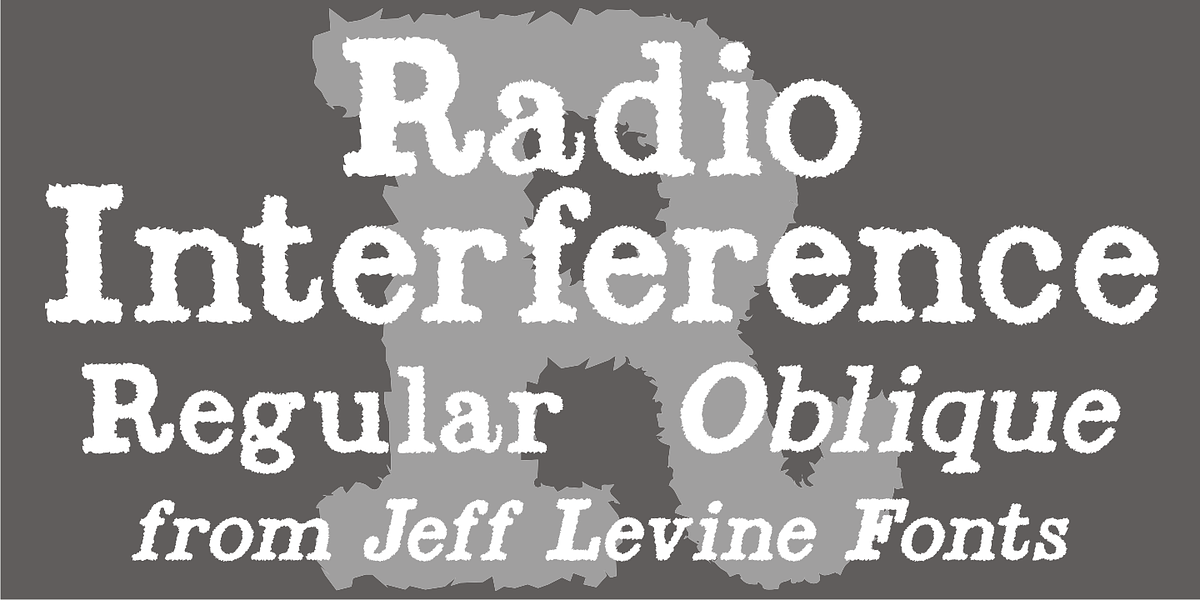
Radio Interference JNL
The font Antique Slabserif JNL was run through a filter to create a design that looks like worn type at smaller settings or jaggedly distressed lettering in larger type heights.
The end result is Radio Interference JNL, which is available in both regular and oblique versions.